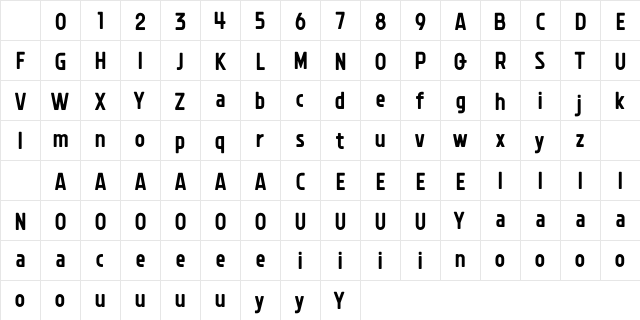
Mike Sans is a composed and adaptable typeface that performs quietly and consistently across a wide range of design contexts.
Pro Tip: Use Mike Sans in both headline and body roles to test its range before committing to a single application.